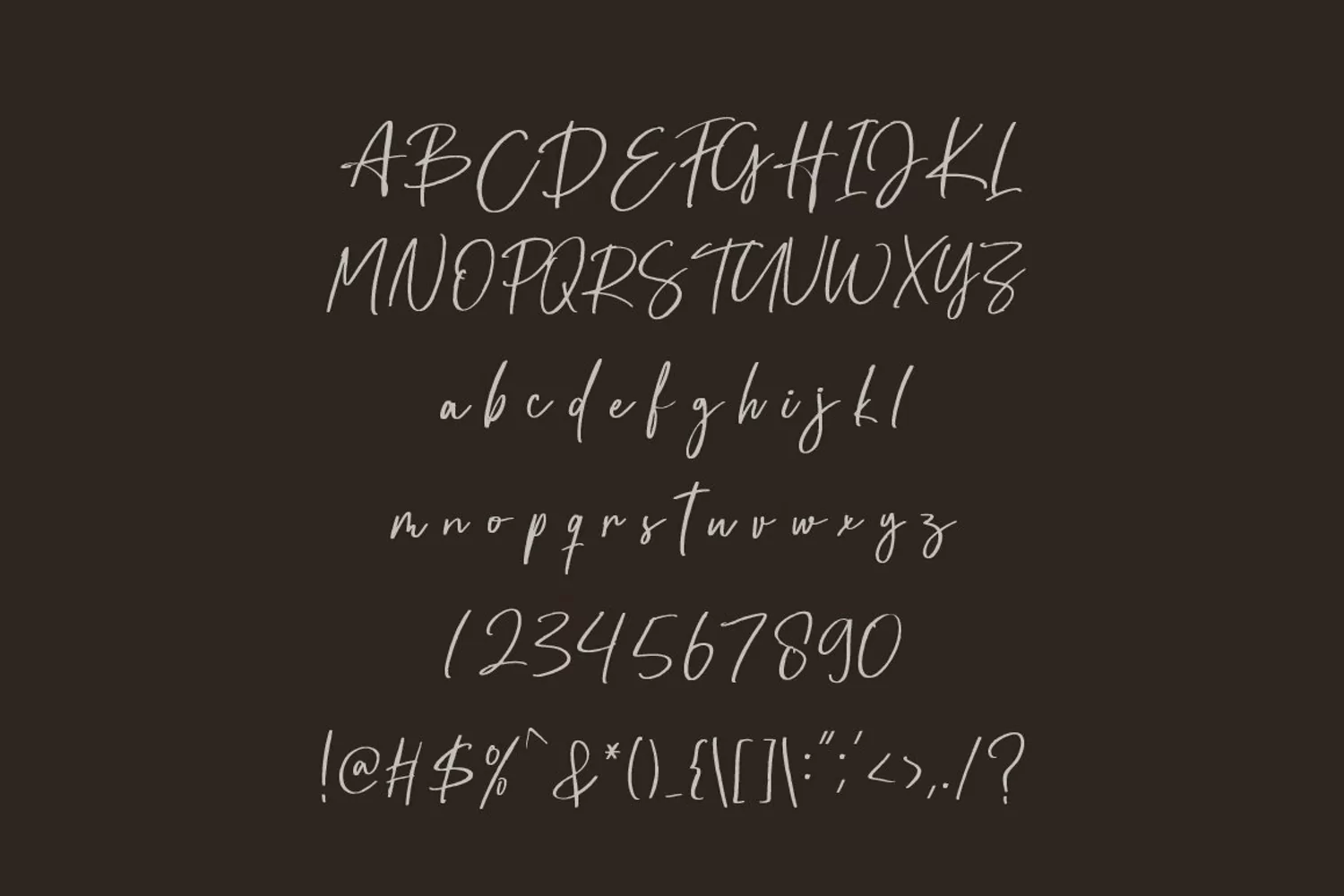
Herstond is natural handwriting font. You will get full set of lowercase and uppercase letters, numerals and punctuation, multilingual symbols, alternate lowercase, and pack of ligatures.This font that is suitable for branding, signature, wedding invitation, promotion, product packaging, and other needs. This font is natural, simple, but still authentic and very stylish.